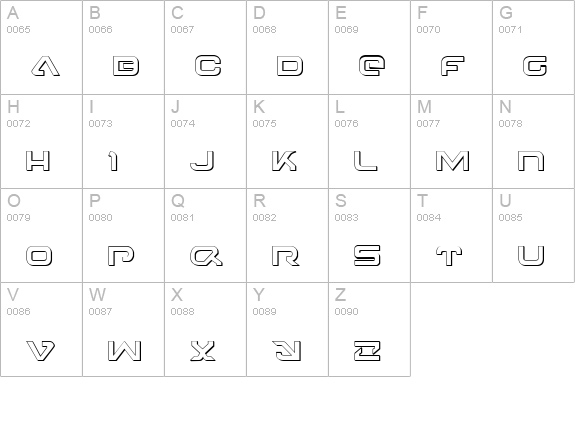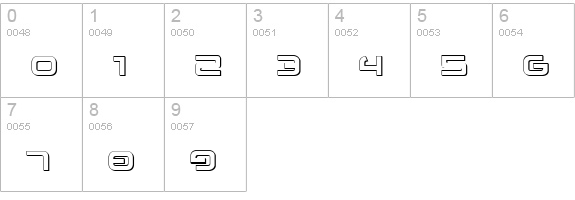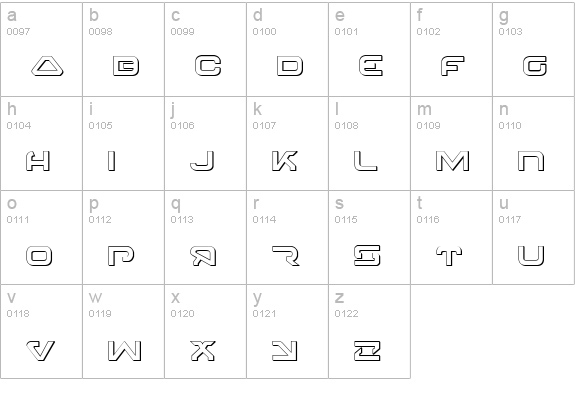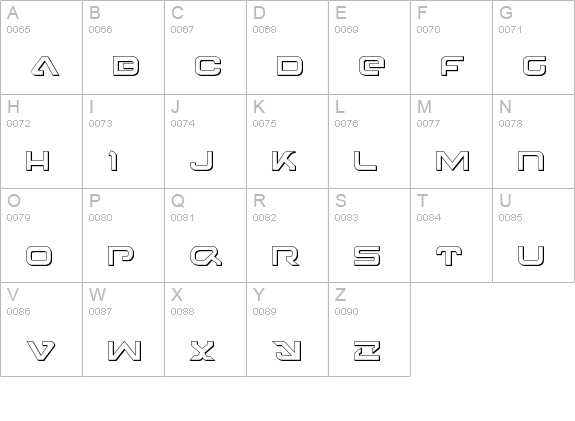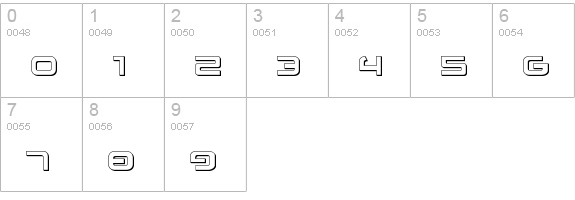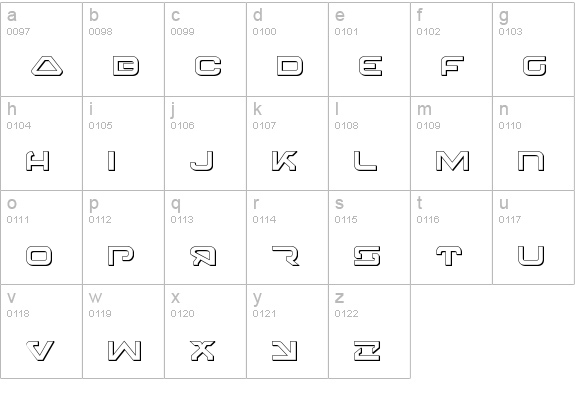
The 4114 Blaster 3D font is a dynamic and eye-catching typeface that exudes a sense of energy and modernity. With its bold and futuristic design, this font is perfect for adding a bold statement to any project or design. The 3D effect gives it a sense of depth and dimension, making it stand out from the crowd. What's even better is that the 4114 Blaster 3D font is available for free download at FontsMarket.com. This means you can easily access this striking font and use it in your creative projects without any cost. Whether you're designing a poster, logo, website, or any other visual content, the 4114 Blaster 3D font is sure to make a powerful impact. Download it now and unleash your creativity with this fantastic font!